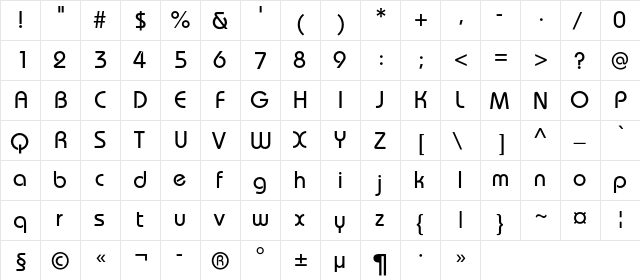
BauhausMediumC Regular
Design Context for BauhausMediumC Typeface
BauhausMediumC takes a measured approach to typography — its balanced proportions and neutral character make it a reliable workhorse for both digital and print work.